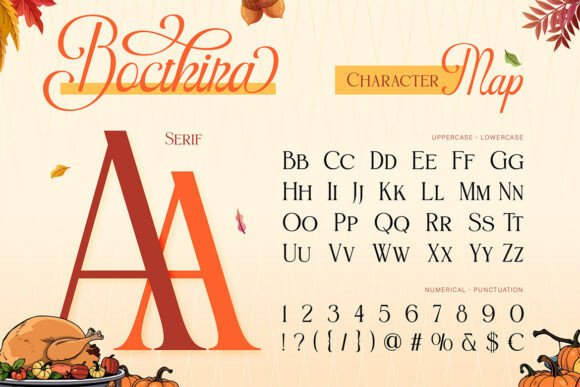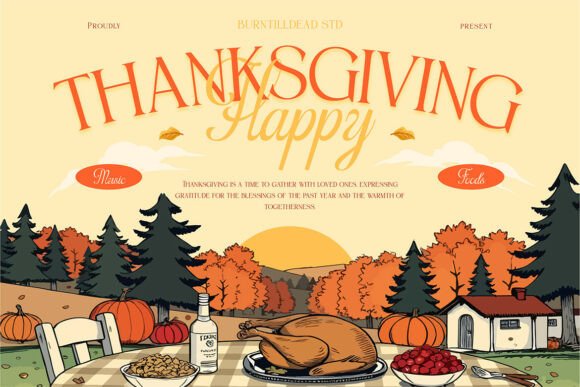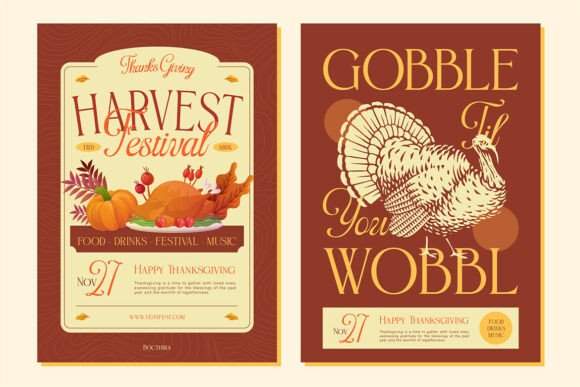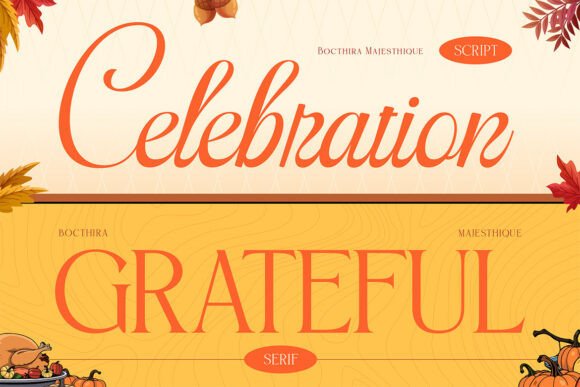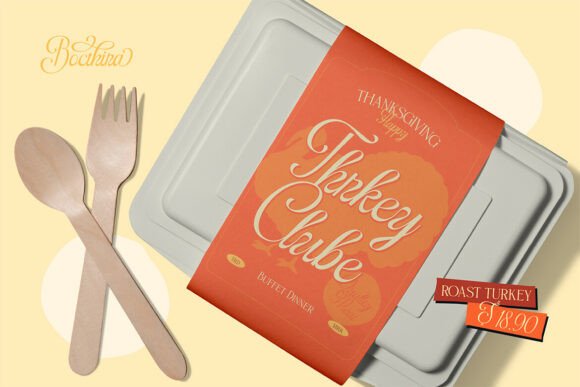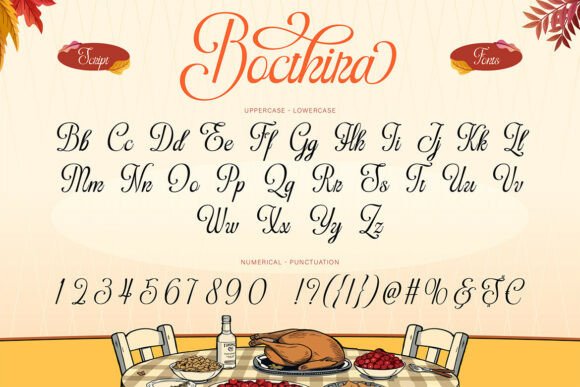
Introduction to Bocthira Majesthique Font
As a designer, there’s nothing quite like the thrill of finding the perfect font to bring your creative project to life. It’s that moment when the words start to flow, and the message begins to resonate. For me, it was when I stumbled upon Bocthira Majesthique Font – a beautiful pairing of serif and script that feels like a warm hug on a cold winter’s day. Its elegant yet welcoming style is perfect for holiday invitations, seasonal branding, and heartfelt greeting cards.
Whether you’re working on a design project that requires a touch of sophistication or a dash of warmth, Bocthira Majesthique Font is an invaluable resource that will elevate your work to new heights. With its transparent background and high-quality design, you can trust that your creations will be nothing short of stunning.
Key Features of Bocthira Majesthique Font
- Unique, elegant design perfect for creative projects and design resources
- Features a transparent background, allowing for seamless integration with various design elements
- Designed with a high-resolution, detailed aesthetic, ideal for use in print or digital applications
- Includes a comprehensive set of characters, including uppercase and lowercase letters, numbers, and punctuation
- Supports multiple languages, making it a versatile design resource for global creative projects
Honest Review: Bocthira Majesthique Font
I recently stumbled upon the Bocthira Majesthique Font, and I must say it’s been a great addition to my design arsenal. The moment I saw it, I knew I had to give it a try. Let’s dive into what works well and what doesn’t.
- The Bocthira Majesthique Font is incredibly versatile and suitable for various creative projects, from branding to typography-based designs.
- The high-quality design ensures a professional look, making it perfect for both personal and commercial use.
- The transparent background allows for seamless integration with any design, giving you complete creative freedom.
While the Bocthira Majesthique Font is an excellent resource, I did notice a few limitations. The font’s range is quite limited, with only a few styles and weights available. Additionally, some characters may not be as detailed as I’d like.
In conclusion, the Bocthira Majesthique Font is a fantastic design resource that has already helped me elevate my designs. While it may have some limitations, its high quality, versatility, and free download make it an excellent choice for any designer. I highly recommend giving it a try!
The Bocthira Majesthique Font is perfect for a wide range of creative projects, including branding, marketing materials, and digital graphics. Its unique style and high quality make it an ideal choice for designers and non-designers alike.